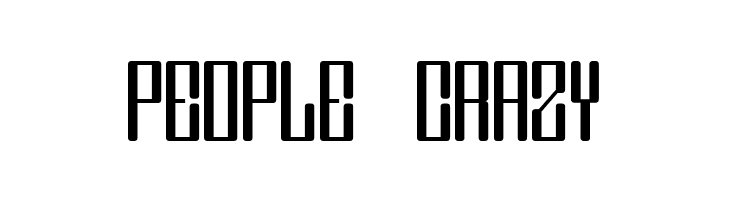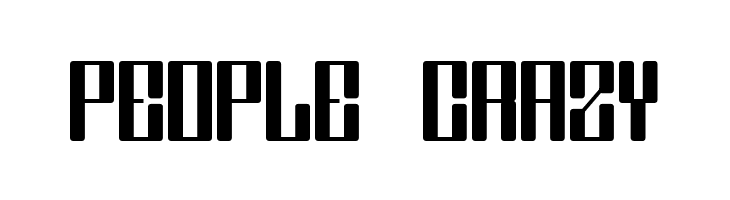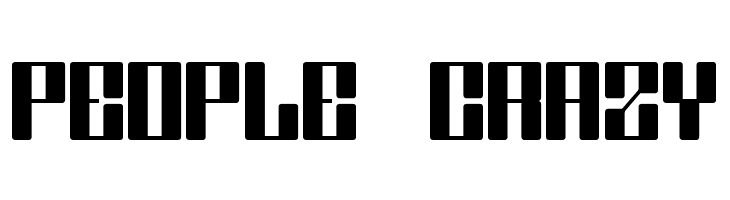
Ordinatum Light Font
A modern, geometric font with tall, narrow characters and medium contrast.
Ordinatum Bold Font
A bold, geometric font with thick strokes and sharp angles, ideal for impactful designs.
Ordinatum Medium Font